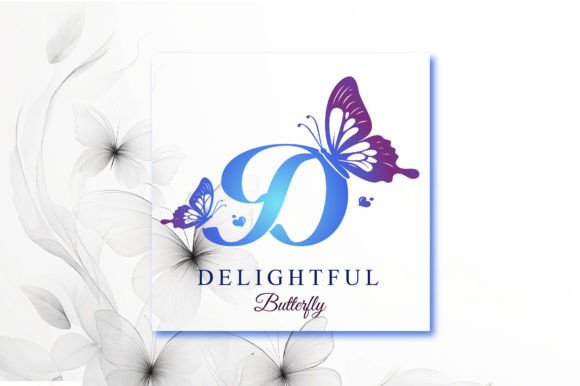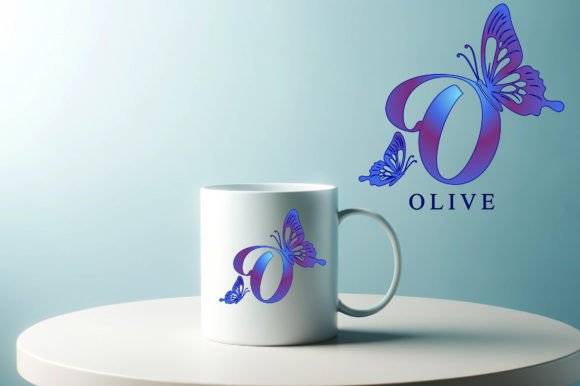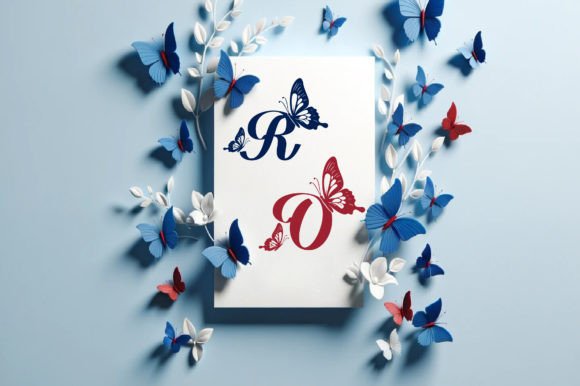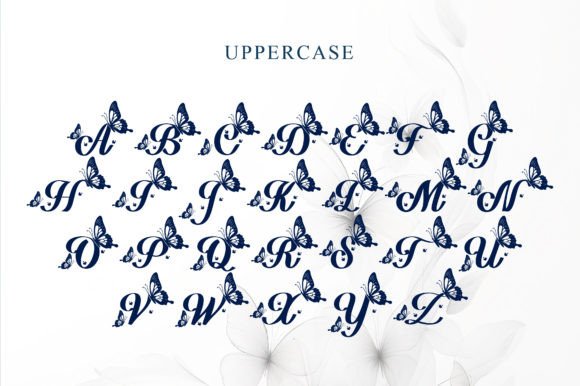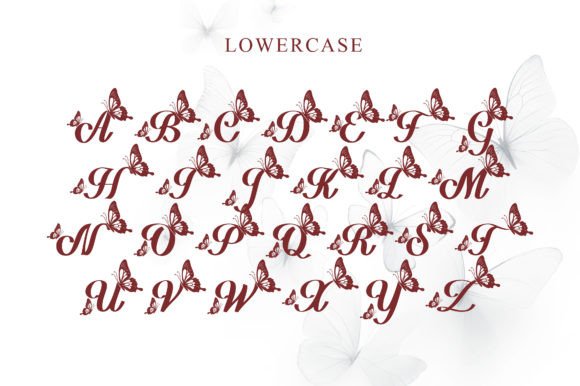
Introducing the Delightful Butterfly Font: Elevate Your Designs with Elegance
In the world of design, fonts play a crucial role in conveying the tone and aesthetic of a project. For those seeking to add a touch of elegance and whimsy to their creations, the Delightful Butterfly Font is an exquisite choice. This decorative font is meticulously crafted with beautiful, elegant butterfly shapes that instantly elevate any design. Whether you’re working on wedding cards, mug decorations, banners, or any other project that demands a sophisticated look, the Delightful Butterfly Font is your perfect companion.
The Charm of Delightful Butterfly Font
The Delightful Butterfly Font stands out with its charming and unique butterfly designs. Each letter and symbol is thoughtfully designed to incorporate these delightful creatures, bringing a sense of joy and lightness to your projects. The font’s elegant touch makes it versatile for various design applications, from romantic wedding invitations to stylish mug designs and captivating banners.
Perfect for Elegant Designs
One of the key features of the Delightful Butterfly Font is its versatility. It’s specifically designed to add a pleasing visual appeal to any project, making it a favorite among designers and crafters. Here are some ways you can use this delightful font:
- Wedding Cards and Invitations: Add a romantic touch to your wedding designs with this beautiful font. It’s perfect for creating elegant invitations, save-the-date cards, and wedding menus.
- Mug Decorations: Personalize mugs with charming quotes or names using the Delightful Butterfly Font. It’s an excellent way to create unique gifts or personalized items.
- Banners and Signs: Whether you’re designing a banner for a wedding, a birthday party, or a business promotion, this font will add an elegant and festive touch.
- Stationery and Paper Crafts: Elevate your stationery designs, such as notebooks, journals, and greeting cards, with the whimsical and elegant feel of the Delightful Butterfly Font.
Why Choose Delightful Butterfly Font?
With numerous fonts available, why should you choose the Delightful Butterfly Font for your projects? Here are a few compelling reasons:
- Unique and Eye-Catching: The butterfly designs ensure that your projects stand out and catch the eye.
- Elegant and Versatile: Suitable for a wide range of design applications, from weddings to business projects.
- Easy to Use: The font is user-friendly and can be easily integrated into your designs, regardless of your design software.
- High-Quality: Professionally crafted to ensure clarity and legibility in various sizes.
Tips for Using Delightful Butterfly Font
To make the most of this beautiful font, consider the following tips:
- Combine with Solids: Pair the Delightful Butterfly Font with solid colors or subtle patterns to let the butterflies be the focal point.
- Play with Sizes: Experiment with different font sizes to create visual hierarchy and emphasize certain parts of your design.
- Add Images: Complement your text with relevant images or illustrations that match the elegant and whimsical theme.
The Delightful Butterfly Font is a beautiful addition to any designer’s toolkit. Its elegant and charming butterfly designs make it perfect for creating visually appealing projects that demand a touch of sophistication. Whether you’re a professional designer or a crafting enthusiast, this font will help you create stunning designs that leave a lasting impression. So, why wait? Dive into the world of delightful designs with the Delightful Butterfly Font and let your creativity soar.